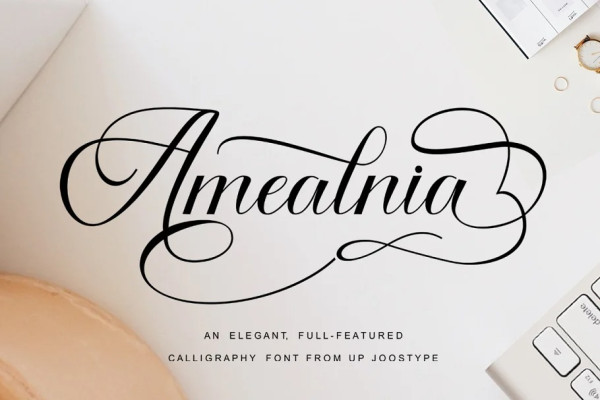
Amealnia Font
Amealnia Font is a new modern script font with an irregular baseline. Trendy and feminine style. Amealnia looks lovely on wedding invitations, thank you cards, quotes, greeting cards, logos, business cards and more. Perfect for using in ink or watercolor. Including initial and terminal letters, alternates, ligatures and multiple language support.